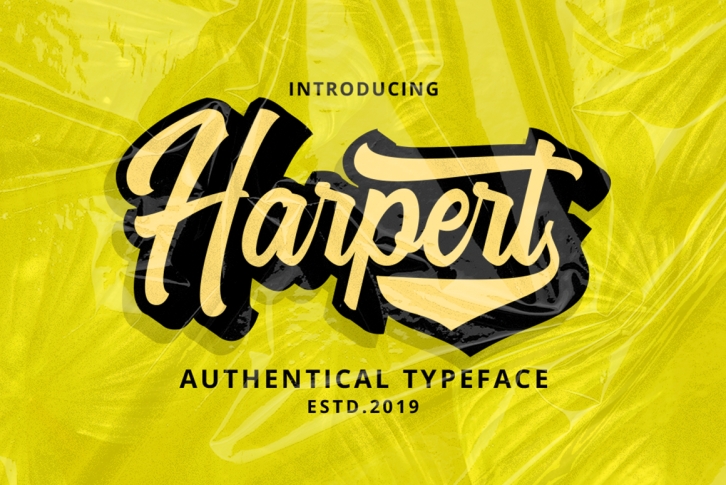
Harpert is a beautiful font that was designed by ijemijem. It's a great choice for designers and creatives who need such a font. It was released on March 18, 2019 and the file size is 12.59 MB. Harpert may give a more youthful, expressive and casual look to your project. It is a very beautiful, refined, elegant, and high-quality font.